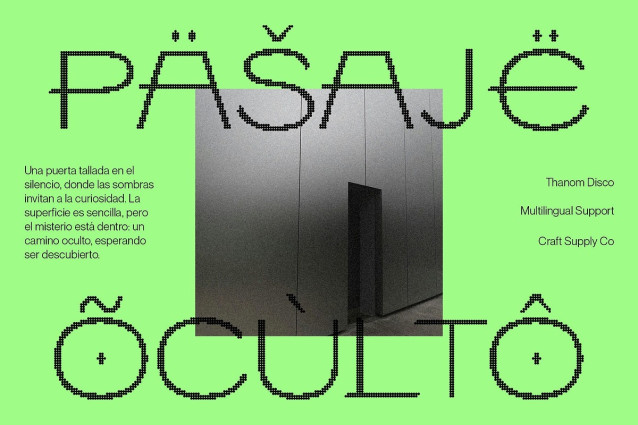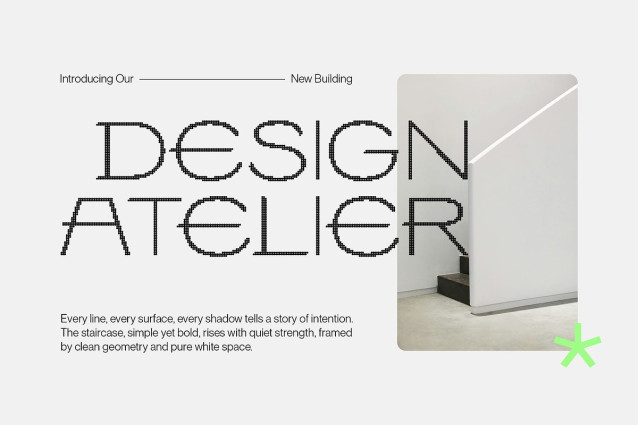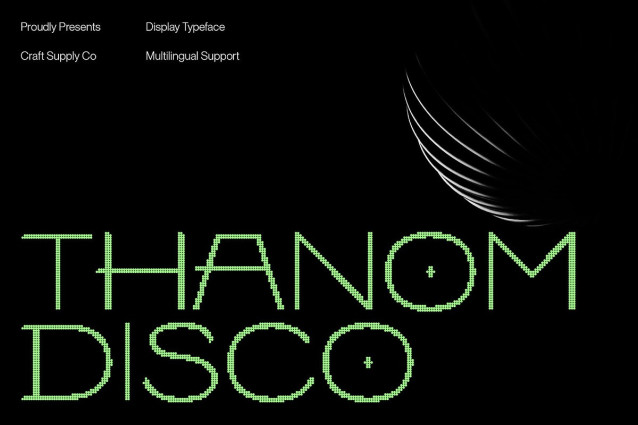
Thanom Disco Font
Thanom Disco Font: Minimalist Energy with Futuristic Spark Techno-Inspired Sans Serif with Disco Flair This is a thin, minimalist sans serif font designed to radiate sleek modernity. Its clean lines and techno-inspired structure create a sense of precision and clarity, making it a natural fit for projects that demand a futuristic edge. The subtle disco effect enhances its appeal, giving each letter a touch of rhythm and shine. Minimalist Structure for Modern Clarity With its slim proportions and refined spacing, maintains readability while projecting an effortlessly stylish look. The minimalist design allows it to adapt across different visual contexts, ensuring that it feels modern and professional without losing personality. Disco Effect for Futuristic Energy The defining feature of Thanom Disco is its disco-inspired detail, which adds sparkle and liveliness to its streamlined form. This subtle shimmer effect creates a sense of movement and excitement, making the font feel more dynamic and futuristic in any setting. Perfect for Branding and Bold Displays Whether used in logos, posters, or high-impact branding, delivers a versatile balance of clarity and energy. Its thin and stylish form makes it ideal for contemporary digital projects, while its disco finish ensures that every design feels bold, fresh, and unforgettable. Download Type Speciment: — What you get : – Thanom Disco Regular – Thanom Disco Italic Features : – Uppercase and lowercase characters – Numerals and Punctuation (OpenType Standard) – Accents (Supports Multilingual Characters) – PUA Encoding — You can use this typeface without needing any specialized software. — If you have any inquiries or need assistance, please feel free to contact us. We appreciate your support in enhancing your creative projects! Best regards, Craft Supply Co.